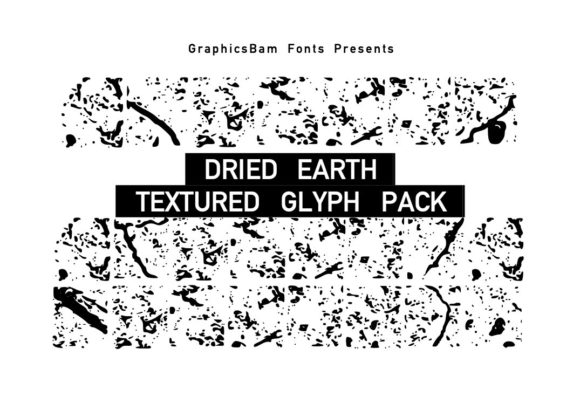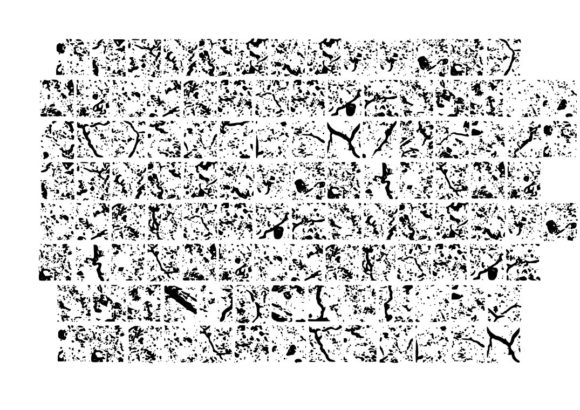
ABOUT DRIED EARTH GLYPH FONT
“Dried Earth Glyph” is a comprehensive collection of glyphs that showcases a variety of cracked and dry earth textures. This pack is specifically designed to add a touch of natural beauty and organic aesthetics to your design or craft projects, allowing you to incorporate the distinct appearance of dried earth into your creative endeavors.
With its diverse range of cracked and dry earth textures, “Dried Earth Glyph” offers numerous options for enhancing your designs with a realistic and textured element. These glyphs capture the unique patterns and colors found in dried earth, featuring cracks, fissures, and weathering effects. They can be used to create a striking visual impact in projects related to nature, landscapes, environmental themes, or any design that seeks to evoke a sense of aridness and rustic charm.
Whether you’re working on graphic designs, illustrations, or any visual medium, “Dried Earth Glyph” provides a versatile toolkit to incorporate the beauty of dried earth textures. The cracked and dry earth textures can add depth, character, and a sense of ruggedness to your compositions, helping you create captivating visuals that resonate with the natural world.
Unleash your creativity and explore the possibilities with “Dried Earth Glyph.” Experiment with different cracked earth textures, sizes, and orientations to achieve the desired look and convey a specific mood or concept. Whether you want to create a desert landscape, evoke a sense of barrenness, or add an organic touch to your designs, these glyphs offer flexibility and artistic freedom in your design process.
Whether you’re designing posters, packaging, digital artwork, or any craft project that calls for the essence of dried earth, “Dried Earth Glyph” is here to elevate your creative vision. Embrace the raw beauty and weathered textures of dried earth as you bring a touch of nature’s artistry to your designs.